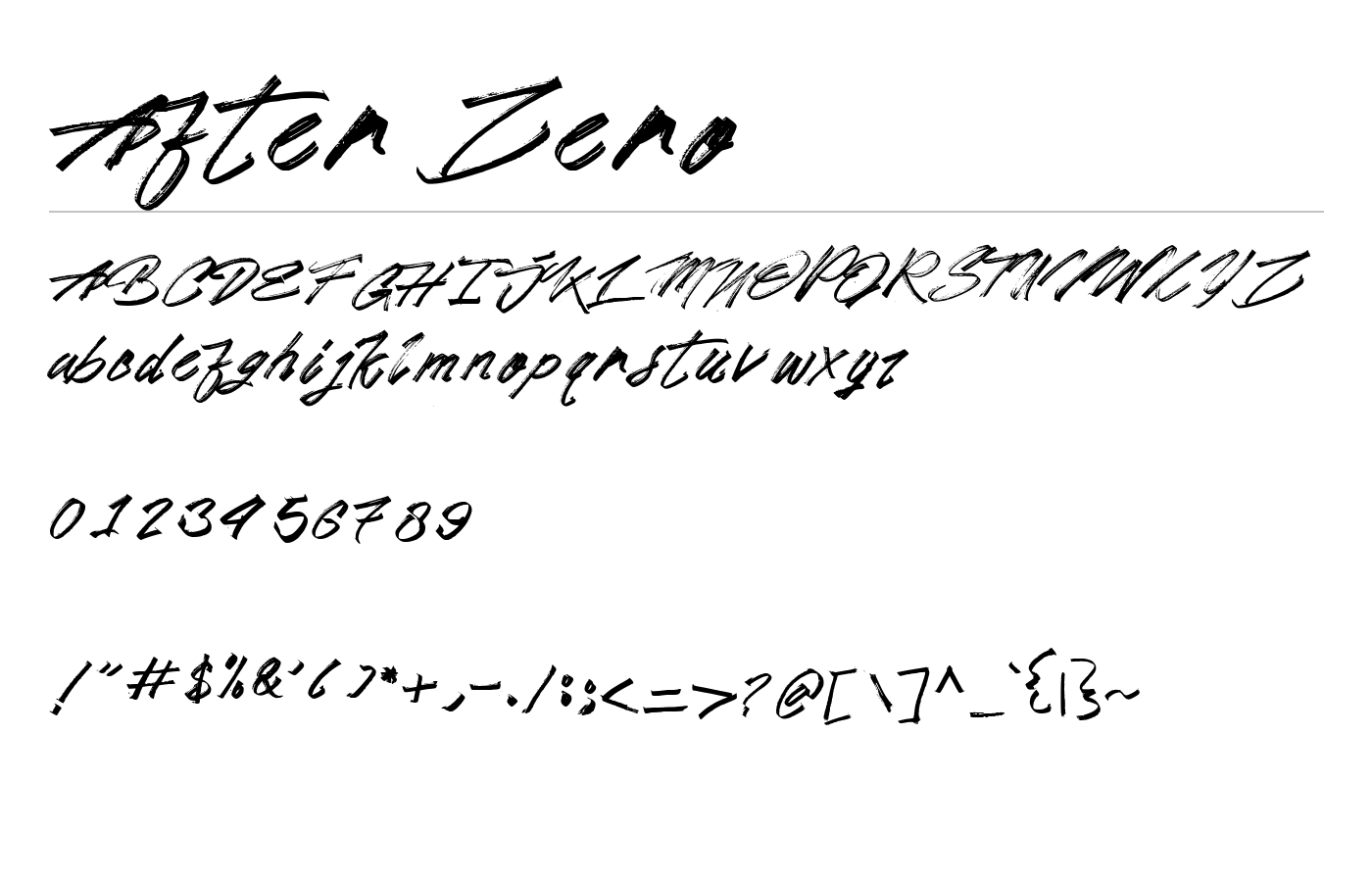
After Zero is a dynamic, handwritten script font that captures an edgy, informal vibe with its rough, textured strokes and energetic letterforms. Its uneven baseline and brush-like marks give it a raw, artistic personality ideal for creative branding, posters, and modern editorial projects seeking a personal, expressive touch. This font works well where a lively, casual feel is desired, adding character and movement to headlines and graphic designs.
After Zero Font